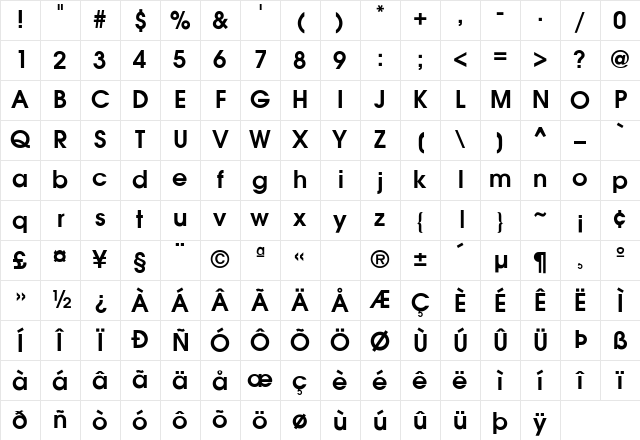
AvantGarde-Demi Regular
Complete AvantGarde-Demi Regular glyph index. Displaying only characters natively supported by AvantGarde-Demi Regular font.
Design Context for AvantGarde-Demi
AvantGarde-Demi is a composed and adaptable typeface that performs quietly and consistently across a wide range of design contexts.